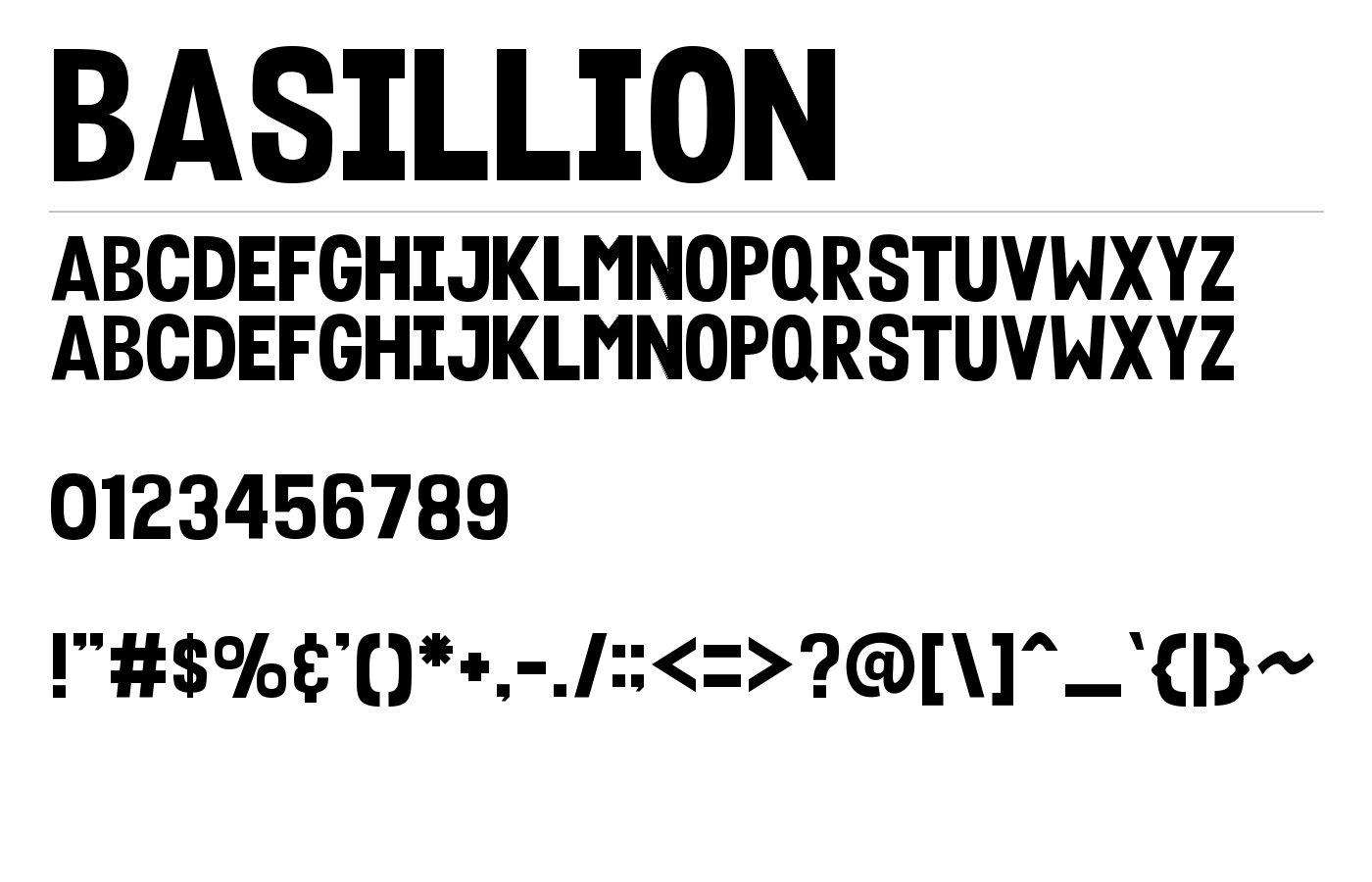
Basillion is a bold, condensed sans serif font with a strong, geometric structure and a slightly rugged edge, giving it a confident and impactful presence. Its uniform stroke weight and tight spacing make it ideal for headlines, logos, and branding that require a modern, assertive style with clear readability. This font works particularly well in designs that need to convey strength and clarity, such as posters, packaging, and editorial display text.
Basillion Font
About Basillion Font